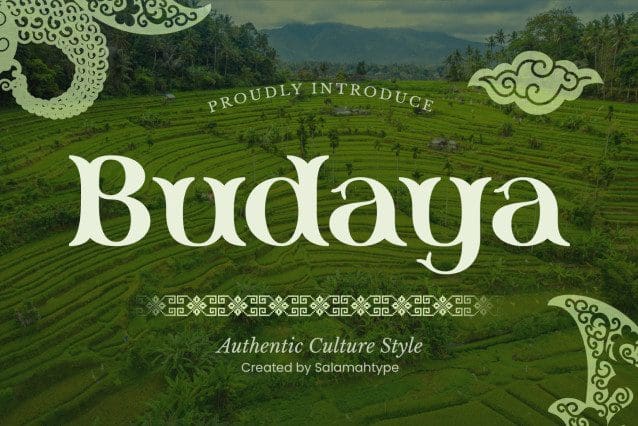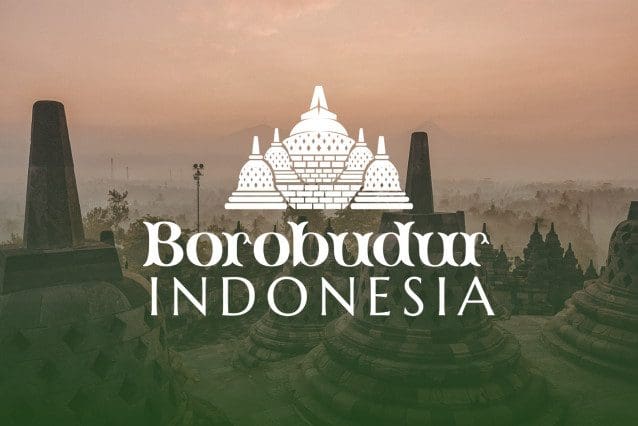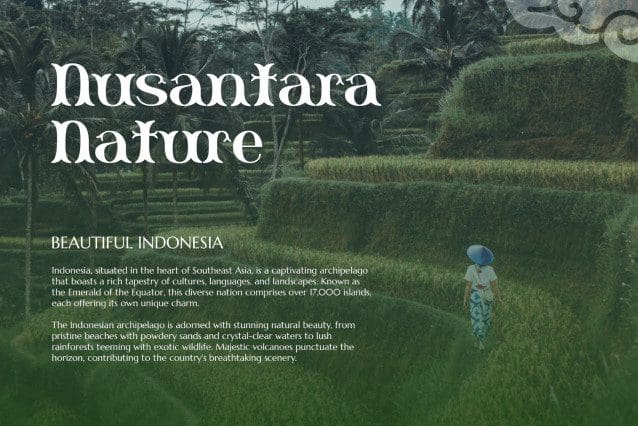
Budaya Culture Font
Budaya Culture Font, which is a unique letter shape that gives a classic or traditional impression. This typeface incorporates visual elements, characters, or stylistic features inspired by the traditions, art, or aesthetics of a culture.
This font is perfect for branding projects, logo concept designs, poster titles, tourism design activities, billboards, tourism magazines, product packaging businesses, tourism film projects, websites and much more!